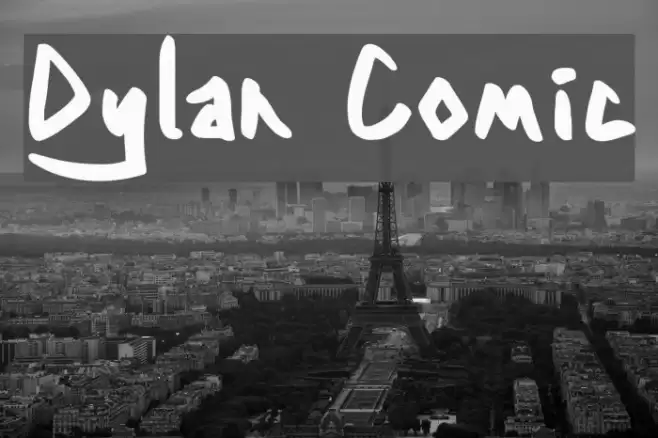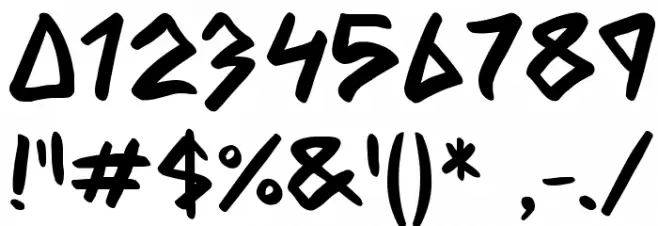
Dylan Comic Font
Dylan Comic Description
This playful and dynamic font features bold, irregular strokes that give it a hand-drawn, comic-like appearance. The uppercase and lowercase letters are characterized by their uneven, slightly slanted forms, adding a sense of movement and energy. The numbers and special characters maintain this lively style, making the font suitable for informal and creative projects. Its unique, whimsical design is perfect for capturing attention and conveying a sense of fun and spontaneity.
A bold, hand-drawn font with a playful, comic-like style from Comic fonts.
- Proposed Projects: Ideal for comic books, children's books, playful branding, posters, and creative social media graphics.
- Overall Style: Playful, Comic